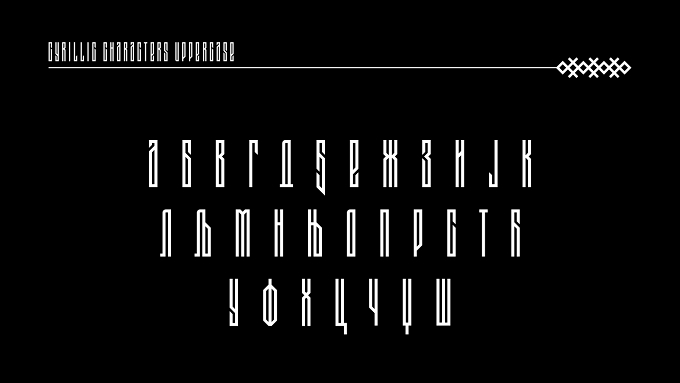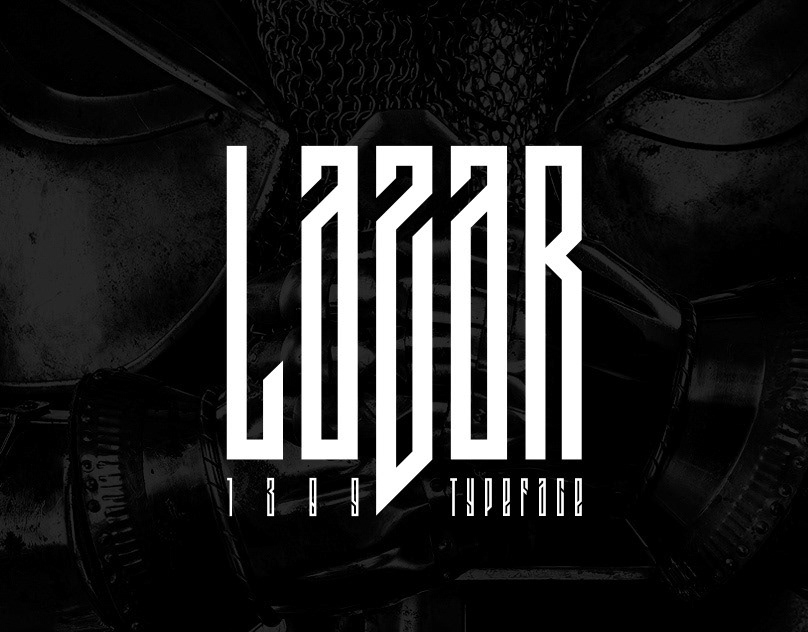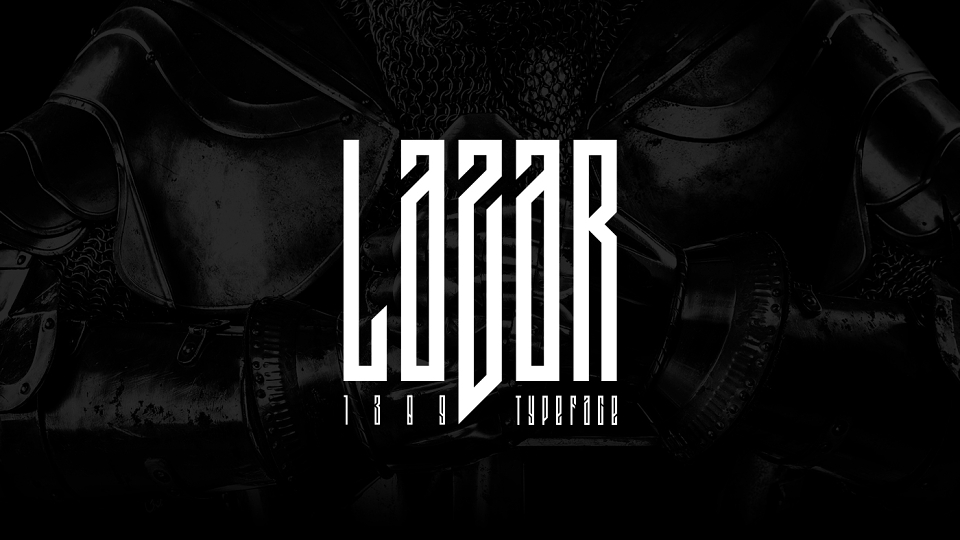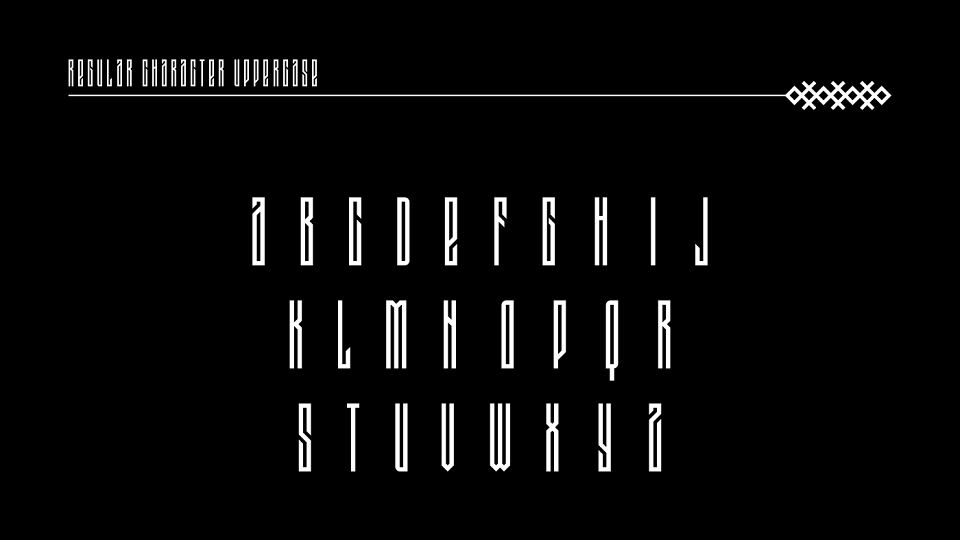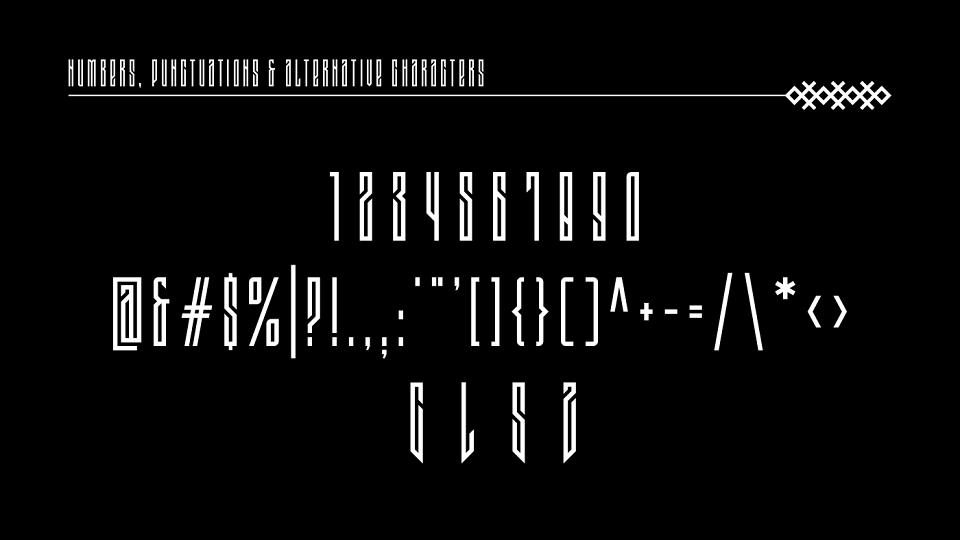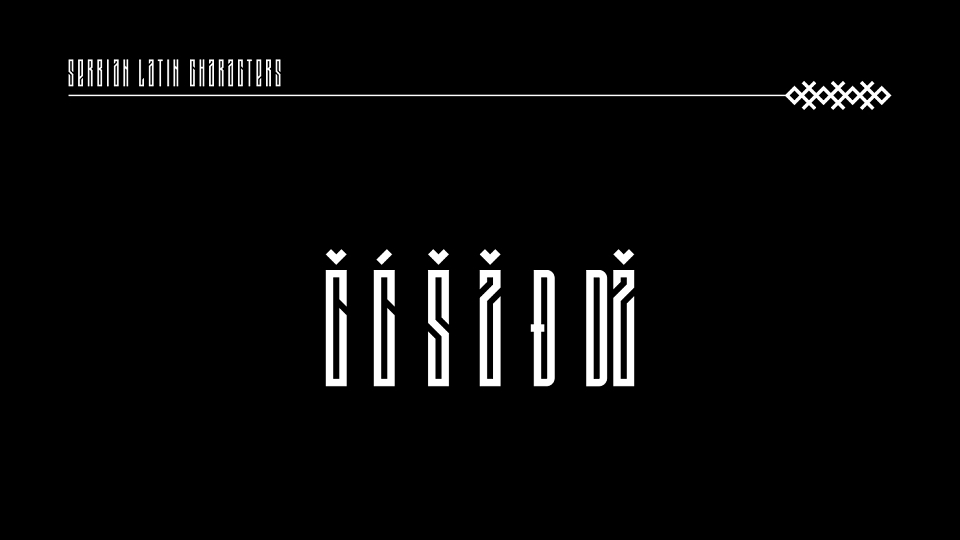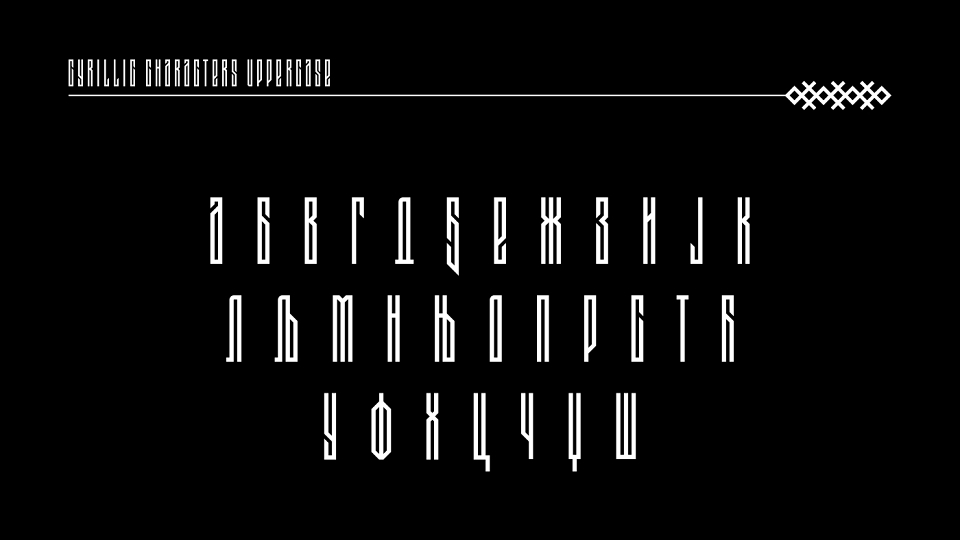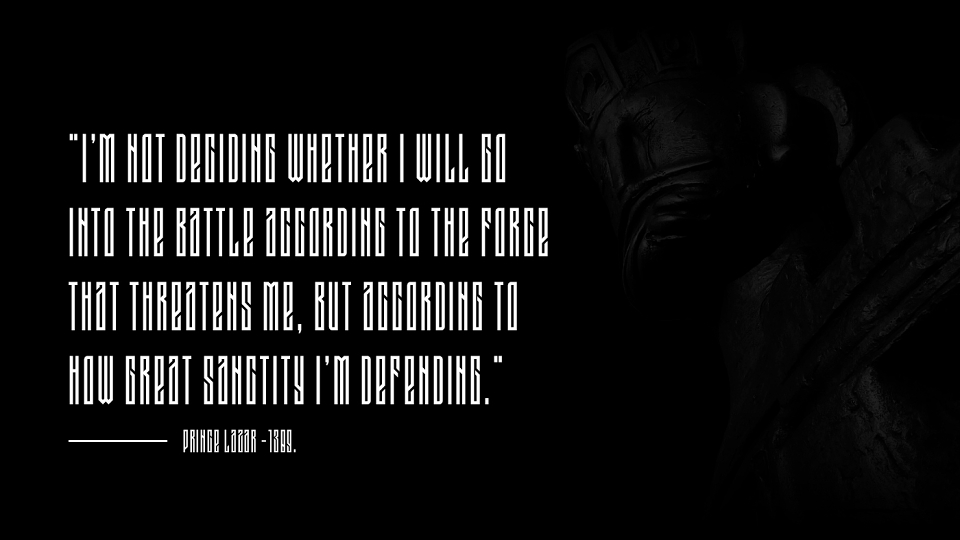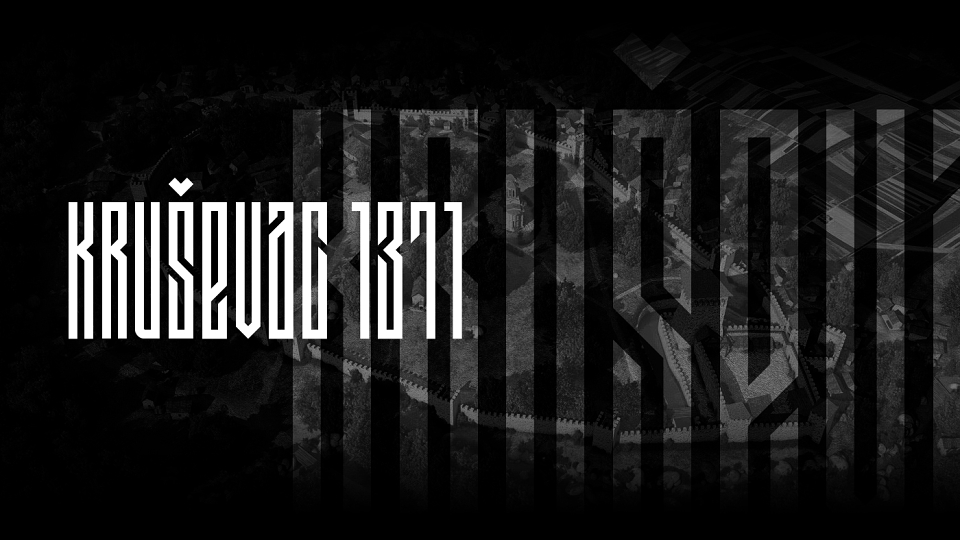
Lazar 1389 Font is a display typeface inspired by Serbian medieval history. It features ultra tall and compressed style with sharp angles, which give a consistent geometric look. It's perfect for posters, headers, t-shirt prints and billboards.
Lazar 1389 Typeface